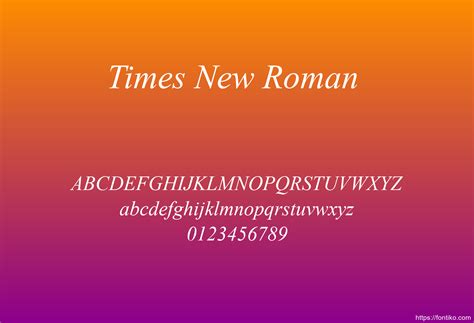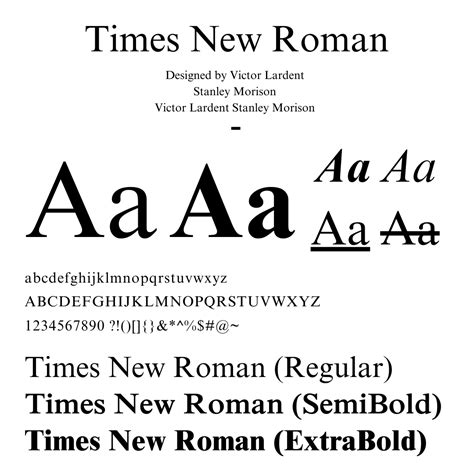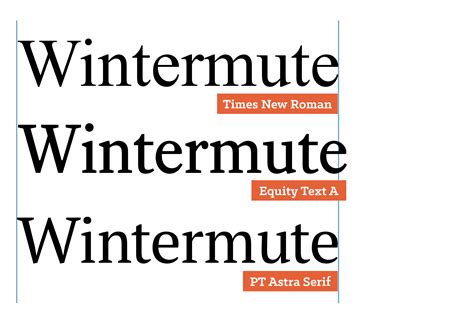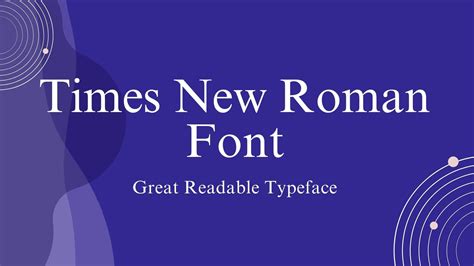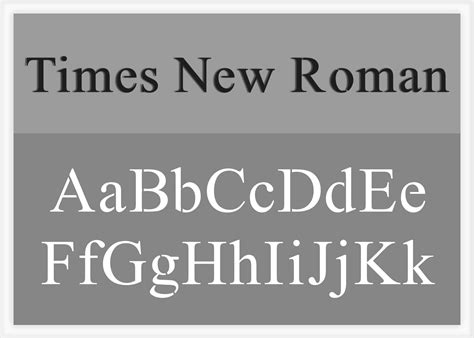
Best 41+ Times New Roman Google Fonts Ttf
Over the past decade, I've designed hundreds of editorial layouts, and I constantly run into the same roadblock: clients want the exact Times New Roman aesthetic, but they don't have the licensing for the proprietary .ttf files. Finding the Best 41+ Times New Roman Google Fonts Ttf alternatives becomes essential when you need open-source typography that mimics that classic serif structure. When I tested various Google Fonts, I realized you don't just need a single replacement; you need a toolkit of typefaces that share the same horizontal stress and sharp serifs to fit different contexts.
Why Search for the Best 41+ Times New Roman Google Fonts Ttf Alternatives?
Here’s the thing about Times New Roman: it’s a beautifully crafted transitional serif, but it is owned by Monotype. You can’t legally bundle its .ttf file into an open-source project or commercial web template. Google Fonts, however, offers an incredible repository of SIL Open Font Licensed alternatives that capture that same editorial gravity. In my experience, you have to look at the stroke contrast and x-height to find a true match. A simple visual test isn’t enough; you have to print them out to see how the ink traps behave at smaller sizes.
Comparing Top Serif Replacements
When I was compiling my master list of alternatives, I narrowed down the massive Google Fonts library to a few standout families that handle body text beautifully. I judged them based on their compatibility with Times New Roman’s distinct character spacing and true italic styles.
Font FamilySimilarity to TimesBest Use Case
TinosAlmost identicalDocument restoration and legal text
EB GaramondHigh (slightly older style)Long-form books and academic papers
PT SerifModerateWeb body text and mobile UI
LoraLow (brushed serifs)Blogs and lifestyle magazines
Typography Nuances to Watch For
That said, not all serifs are created equal. When I tested Tinos against EB Garamond, I noticed that Tinos matches the exact metrics of Times New Roman, making it the ultimate drop-in replacement. EB Garamond, on the other hand, has a slightly narrower default character width. If you are trying to match the exact page count of a legacy document, stick to Tinos. If you want better legibility on digital screens, PT Serif handles low-resolution anti-aliasing much better than the original.